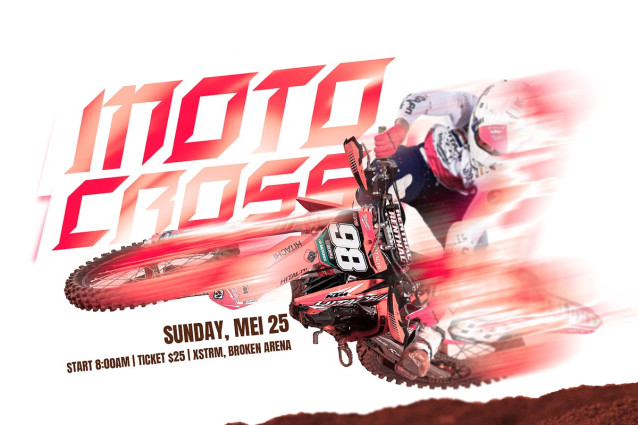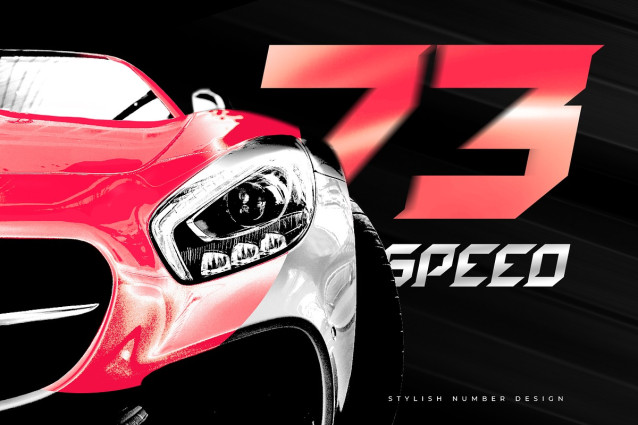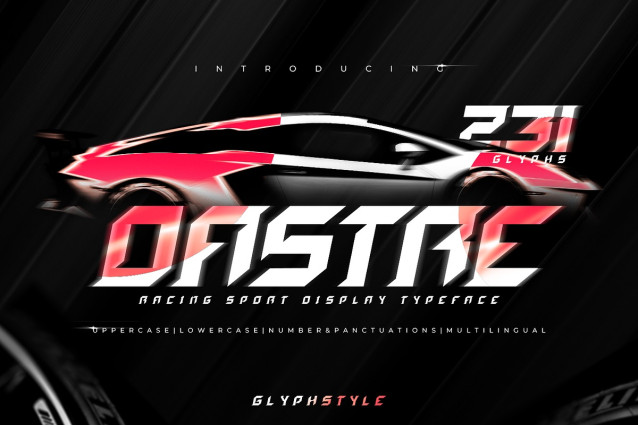
Dastre Display Font
Dastre Display Font is specially designed with a strong racing style, highlighting the impression of speed, strength, and high adrenaline. The letter design appears firm, sharp, and modern, with italic elements and aerodynamic line cuts—depicting the speed of the vehicle at high speed.
Dastre is perfect for branding projects, logos, wedding designs, social media posts, advertisements, product packaging, product designs, labels, photography, watermarks, invitations, stationery, and any project that requires racing theme font.